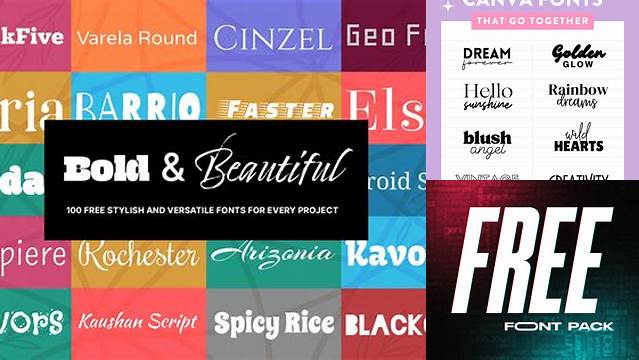
Free Font Packs On Reddit: Your Ultimate Guide
Hey guys! Ever found yourself scrolling through Reddit, admiring the awesome typography in someone's design and wondering where they got their fonts? You're not alone! The world of fonts can be a wild and wonderful place, but finding the perfect free font pack can sometimes feel like searching for a needle in a haystack. But fear not! Reddit is a treasure trove of resources, and today, we're diving deep into the best places to find free font packs on Reddit. We'll explore different subreddits, user recommendations, and tips on how to safely download and use these fonts. So, let's get started and elevate your designs with some fresh typography!
Exploring Reddit for Font Packs
Finding free font packs on Reddit is all about knowing where to look. Reddit's community-driven nature makes it an amazing place to discover hidden gems and user-recommended resources. But before we dive into specific subreddits, let's talk about the general approach. Start by using the search bar! Simple queries like "free fonts," "font packs," or even specific styles like "serif fonts free" can yield surprising results. Don't be afraid to get specific with your search terms to narrow down your options and find exactly what you're looking for. Reddit's search function is your best friend in this journey, so get comfortable using it! The key is to experiment with different keywords and phrases to uncover the best font resources Reddit has to offer. Remember to also check the comments sections of posts – often, users will share valuable links and recommendations that aren't included in the original post. So, let's get ready to explore the vast font landscape that Reddit has waiting for you!
Best Subreddits for Free Fonts
Okay, so you know how to search, but where should you start? Several subreddits are dedicated to design resources, and many users generously share free font packs within these communities. Let's talk about some of the top contenders. First up, /r/FreeDesignResources. This subreddit is a goldmine for all things design-related, including fonts! Users frequently post links to free font packs, mockups, and other resources. Be sure to browse through the posts and use the search function within the subreddit to find specific font styles or types. Another great option is /r/graphic_design. While not exclusively focused on free resources, this subreddit often features discussions and posts about typography, and users often share their favorite free fonts in the comments. Keep an eye out for these discussions, as they can lead you to some amazing finds. And don't forget about more specialized subreddits! For example, if you're looking for calligraphy fonts, try searching for subreddits dedicated to calligraphy or hand-lettering. These niche communities often have a wealth of information and resources for specific font styles. Remember to always check the rules of each subreddit before posting or downloading anything, and be respectful of the community. Happy font hunting!
Free Fonts Subreddit: A Deep Dive
Let's take a closer look at /r/FreeFonts, a subreddit specifically dedicated to – you guessed it – free fonts! This is a fantastic place to discover a wide variety of typography options. The community is active, and users regularly share links to free font packs, individual fonts, and resources for finding fonts. One of the best ways to navigate this subreddit is by using the search function to look for specific font styles or types. You can also browse through the posts to see what's been recently shared. Another helpful tip is to check the sidebar of the subreddit, as it often contains links to useful resources and FAQs. Remember to always read the descriptions and licensing information for any fonts you download to ensure you're using them legally. /r/FreeFonts is a vibrant community, and you'll likely find plenty of inspiration and new fonts to add to your collection. So, take some time to explore this subreddit and see what typography treasures you can uncover. You might just find your new favorite font!
Finding Free Fonts on Reddit: User Recommendations
Beyond the dedicated subreddits, one of the best ways to discover free font packs on Reddit is by tapping into the collective knowledge of the users themselves. Reddit is a community, and people love to share their favorite resources and recommendations. So, how do you find these hidden gems? Start by looking for threads or posts where users are discussing fonts or typography. Often, people will ask for recommendations for specific font styles or share their favorite free fonts in the comments. These comment sections can be a goldmine of information! Another strategy is to search for posts where users are showcasing their designs or projects. If you see a font you like, don't hesitate to ask the user what font they used and where they found it. Most people are happy to share their resources and help others. You can also try searching for posts with titles like "Best Free Fonts," "Font Recommendations," or "Free Font Resources." These types of posts are often filled with user suggestions and links to helpful websites and resources. Remember to always be respectful and thank the users who share their recommendations. Reddit's community thrives on collaboration and sharing, so your gratitude will be appreciated! So, get ready to explore the wisdom of the Reddit crowd and discover some amazing free fonts!
Font Pack Styles: Finding Your Perfect Match
Now that we've covered the basics of finding free font packs on Reddit and staying safe, let's talk about finding the right fonts for your projects. With so many fonts available, it can be overwhelming to know where to start. One of the best ways to narrow down your options is to think about the style of font you're looking for. Are you creating a formal document that requires a classic serif font? Or are you designing a modern website that calls for a clean sans-serif font? Perhaps you're working on a vintage-inspired project that would benefit from a script font or a decorative display font. Understanding the different font styles and their common uses can help you make informed choices. Serif fonts, with their little "feet" or serifs, are often used in print materials and lend a traditional, elegant feel. Sans-serif fonts, without serifs, are typically used for digital displays and convey a more modern, minimalist aesthetic. Script fonts mimic handwriting and can add a personal touch to your designs. Display fonts are designed for headlines and titles and often feature unique, eye-catching characteristics. By considering the style of font that best suits your project, you can streamline your search and find the perfect typography to bring your vision to life. So, think about the message you want to convey and choose fonts that align with your overall design aesthetic!
Serif Font Packs: Classic Elegance
Let's zoom in on a specific font style: serif fonts. Serif fonts are characterized by the small decorative strokes, or serifs, that extend from the main strokes of the letters. These fonts have a long history and are often associated with tradition, elegance, and authority. They are commonly used in print materials, such as books, newspapers, and magazines, as well as in formal documents and corporate branding. If you're looking for free serif font packs on Reddit, you're in luck! There are plenty of options available. Some popular serif fonts include Times New Roman, Garamond, and Georgia, but there are also many other beautiful and unique serif fonts to discover. When choosing a serif font, consider the overall tone and message you want to convey. A classic serif font like Times New Roman can lend a sense of formality and professionalism, while a more decorative serif font can add a touch of personality and flair. Be sure to pay attention to the font's readability, especially if you're using it for body text. A well-designed serif font should be easy to read at various sizes. Reddit's design communities often discuss and share their favorite serif fonts, so be sure to check out subreddits like /r/typography and /r/graphic_design for recommendations and inspiration. With a little searching, you can find the perfect serif font to add a touch of classic elegance to your projects!
Sans-Serif Font Packs: Modern Minimalism
Now, let's shift our focus to sans-serif fonts. Unlike serif fonts, sans-serif fonts lack the decorative strokes, or serifs, at the ends of the letters. This gives them a cleaner, more modern appearance, making them a popular choice for digital displays, websites, and branding. If you're searching for free sans-serif font packs on Reddit, you'll find a wide variety of options to choose from. Some well-known sans-serif fonts include Arial, Helvetica, and Open Sans, but there are also countless other fantastic sans-serif fonts waiting to be discovered. When selecting a sans-serif font, consider the overall aesthetic you want to achieve. A clean, minimalist sans-serif font can convey a sense of sophistication and simplicity, while a bolder sans-serif font can make a strong statement. Pay attention to the font's legibility, especially if you're using it for body text on a website or in a mobile app. A legible sans-serif font should be easy to read on screens of various sizes and resolutions. Reddit's design communities are a great resource for finding recommendations and inspiration for sans-serif fonts. Check out subreddits like /r/web_design and /r/UI_Design for discussions and suggestions from fellow designers. With a little exploration, you can find the perfect sans-serif font to add a touch of modern minimalism to your designs!
Script Font Packs: Elegant Handwritings
If you're looking to add a touch of personality and elegance to your designs, script fonts are an excellent choice. Script fonts mimic the flowing strokes of handwriting, giving them a unique and artistic feel. They are often used for invitations, logos, and other designs where a personal touch is desired. Finding free script font packs on Reddit can be a bit more challenging than finding serif or sans-serif fonts, but there are still plenty of options available. When searching for script fonts, be sure to use specific keywords like "free calligraphy fonts," "free handwriting fonts," or "free cursive fonts." This will help you narrow down your search and find the perfect script font for your needs. Keep in mind that script fonts can sometimes be less legible than serif or sans-serif fonts, so it's important to choose a script font that is clear and easy to read, especially if you're using it for body text. Reddit's calligraphy and hand-lettering communities are great resources for finding recommendations and inspiration for script fonts. Check out subreddits like /r/calligraphy and /r/handwriting for discussions and suggestions from fellow lettering enthusiasts. With a little searching, you can find a beautiful script font to add a touch of handwritten elegance to your projects!
Display Font Packs: Bold and Unique
For designs that need to make a statement, display fonts are the way to go. These fonts are designed to grab attention and are often used for headlines, titles, and logos. Display fonts come in a wide variety of styles, from bold and blocky to whimsical and decorative. If you're on the hunt for free display font packs on Reddit, you'll find a treasure trove of creative options. When searching for display fonts, be sure to use specific keywords that reflect the style you're looking for, such as "free vintage fonts," "free futuristic fonts," or "free grunge fonts." This will help you narrow down your search and find the perfect display font for your project. Because display fonts are often used at larger sizes, legibility is less of a concern than with body text fonts. However, it's still important to choose a display font that is clear and easy to read, especially if you're using it for shorter headlines or titles. Reddit's design communities are a fantastic resource for finding recommendations and inspiration for display fonts. Explore subreddits like /r/graphic_design and /r/typography for discussions and suggestions from fellow designers. With a little exploration, you can discover a bold and unique display font that will make your designs stand out!
Reddit Font Pack Resources: Websites and Links
We've explored subreddits and user recommendations, but let's talk about specific websites and links that are often shared on Reddit for free font packs. Many websites offer a curated selection of free fonts, and Redditors are quick to share their favorite finds. Some popular websites include Font Squirrel, Google Fonts, and DaFont. Font Squirrel is known for its high-quality free fonts that are licensed for commercial use. Google Fonts offers a vast library of open-source fonts that are easy to use on websites and in documents. DaFont features a wide variety of fonts, including many free options, but it's important to carefully review the licensing information for each font before using it. When browsing these websites, be sure to use the search filters to narrow down your options by style, license, and other criteria. You can also check out their curated collections and featured fonts for inspiration. Reddit threads often link directly to these websites, so keep an eye out for those shares. Remember to always double-check the licensing information for any font you download, regardless of the source. By exploring these websites and links shared on Reddit, you can expand your font library and discover new typographic treasures!
Font Squirrel: A Reddit Favorite
Let's take a closer look at one of Reddit's favorite resources for free font packs: Font Squirrel. This website is a go-to destination for designers looking for high-quality, commercially licensed fonts that are free to download. Font Squirrel stands out for its careful selection of fonts, ensuring that every font offered on the site is well-designed and professionally crafted. One of the best features of Font Squirrel is its Font Identifier tool, which allows you to upload an image of a font and identify it. This can be incredibly helpful if you've seen a font you like but don't know its name. The website also offers a Webfont Generator, which allows you to convert desktop fonts into web fonts for use on websites. When browsing Font Squirrel, you can filter fonts by style, license, and other criteria, making it easy to find the perfect font for your project. The website also features blog posts and articles about typography, providing valuable insights and inspiration for designers. Redditors often share their Font Squirrel finds in design subreddits, highlighting the website's reputation as a reliable source for free fonts. If you're serious about typography, Font Squirrel is a website you'll want to bookmark! Its commitment to quality and its focus on commercial-use fonts make it a valuable resource for any designer.
Google Fonts: Open Source Typography on Reddit
Another popular resource for free font packs often mentioned on Reddit is Google Fonts. This platform offers a vast library of open-source fonts that are easy to use on websites and in documents. One of the key advantages of Google Fonts is its seamless integration with Google's services, such as Google Docs and Google Slides. This makes it incredibly convenient to use these fonts in your projects. Google Fonts also offers a simple way to embed fonts on your website, ensuring that your typography looks consistent across different browsers and devices. The platform's open-source nature means that all fonts are free to use, even for commercial projects. Google Fonts features a clean and intuitive interface, making it easy to browse and filter fonts by style, language, and other criteria. You can also preview fonts in different sizes and styles to see how they will look in your designs. Reddit users often recommend Google Fonts for its accessibility, its vast selection of fonts, and its ease of use. If you're looking for a reliable source of free, open-source fonts, Google Fonts is an excellent choice. Its integration with Google's services and its simple embedding process make it a particularly valuable resource for web designers and developers.
DaFont: A Reddit User's Paradise for Free Fonts
DaFont is a name that frequently pops up in Reddit discussions about free font packs. This website boasts an extensive collection of fonts, many of which are available for free download. DaFont is a treasure trove for designers seeking a wide variety of styles, from classic serifs to playful display fonts. However, it's crucial to exercise caution when using DaFont, as licensing can vary significantly between fonts. While many fonts are free for personal use, commercial use may require a license or donation to the author. It's always essential to carefully review the licensing information provided with each font before incorporating it into your projects. DaFont's user-friendly interface allows you to browse fonts by category, theme, or author. You can also preview fonts with custom text to see how they will look in your designs. Reddit users often share their DaFont discoveries, highlighting the site's vast selection and the unique fonts that can be found there. If you're willing to take the time to carefully review licensing terms, DaFont can be a valuable resource for expanding your font library. Just remember to prioritize safety and legal compliance when using fonts from this platform.
Free Font Pack Alternatives: Beyond Reddit
While Reddit is a fantastic resource for finding free font packs, it's not the only game in town. There are many other websites and platforms that offer free fonts, and it's worth exploring these alternatives to expand your options. Some popular alternatives include MyFonts, Adobe Fonts, and Creative Market. MyFonts is a well-known marketplace for fonts, offering a vast selection of both free and premium fonts. Adobe Fonts is a subscription-based service that provides access to thousands of fonts, but it also offers a selection of free fonts. Creative Market is a marketplace for design assets, including fonts, and it often features free font bundles and promotions. When exploring these alternatives, remember to always pay attention to licensing terms and download fonts from reputable sources. You can also find free font resources on individual designer websites and blogs. Many designers generously offer their fonts for free as a way to give back to the community. Reddit threads often mention these alternative resources, so keep an eye out for those recommendations. By exploring beyond Reddit, you can discover even more free font options and find the perfect typography for your projects. So, don't limit yourself – venture out and see what other typographic treasures you can find!
Using Font Packs in Design Projects
Okay, you've found some amazing free font packs on Reddit and from other sources – now what? Let's talk about how to effectively use these fonts in your design projects. The key to good typography is choosing the right font for the right purpose. Consider the overall tone and message of your project and select fonts that align with that vision. For example, if you're designing a website for a law firm, you'll likely want to choose a classic serif font that conveys professionalism and authority. On the other hand, if you're designing a poster for a music festival, you might opt for a bolder, more playful display font. It's also important to consider the legibility of your fonts, especially if you're using them for body text. A font that looks beautiful at a large size may not be as readable at a smaller size. Experiment with different font sizes, weights, and styles to find the optimal balance between aesthetics and legibility. Don't be afraid to mix and match fonts, but do so with intention. A good rule of thumb is to choose one or two fonts for your main text and another font for headlines or accents. Remember to create a visual hierarchy by using different font sizes, weights, and styles to guide the reader's eye. By following these tips, you can effectively use your free font packs to create stunning designs!
Typography Tips for Beginners
If you're new to typography, the world of fonts can seem overwhelming. But don't worry! With a few basic tips, you can start making informed decisions about your typography choices. One of the most important things to remember is to keep it simple. Don't use too many different fonts in a single design. A good starting point is to stick to two or three fonts and use them consistently throughout your project. Another key principle is to create contrast. Use different font sizes, weights, and styles to create visual interest and guide the reader's eye. For example, you might use a bold font for headlines and a lighter font for body text. Pay attention to kerning and leading. Kerning refers to the spacing between individual letters, while leading refers to the spacing between lines of text. Adjusting these settings can significantly improve the readability and visual appeal of your typography. Consider the mood and tone of your project when choosing fonts. A playful script font might be perfect for a children's book, but it would likely be inappropriate for a business report. Don't be afraid to experiment! Try out different font combinations and see what works best for your project. Typography is a skill that develops over time, so the more you practice, the better you'll become. And don't forget the free font packs on Reddit are a great place to find resources for practice! By following these typography tips, you can elevate your designs and create visually appealing and effective communication.
Combining Fonts: Creating Harmony
One of the trickiest aspects of typography is combining fonts effectively. Using multiple fonts in a design can add visual interest and hierarchy, but it's crucial to do it thoughtfully to avoid creating a cluttered or jarring effect. The key to combining fonts is to create harmony and contrast. Choose fonts that complement each other while still having enough distinctiveness to create visual separation. A classic approach is to pair a serif font with a sans-serif font. For example, you might use a serif font for headlines and a sans-serif font for body text, or vice versa. This combination provides a balance between traditional elegance and modern simplicity. Consider the x-height of the fonts you're combining. The x-height is the height of the lowercase letters in a font. Fonts with similar x-heights tend to pair well together. Pay attention to the mood and tone of the fonts. Choose fonts that share a similar aesthetic and evoke the same feeling. For example, you might pair two elegant script fonts for a wedding invitation, or two bold sans-serif fonts for a modern poster. Limit the number of fonts you use. As a general rule, it's best to stick to two or three fonts in a single design. Too many fonts can create a sense of visual chaos. Experiment and practice! Try out different font combinations and see what works best for your project. The more you practice, the better you'll become at combining fonts effectively. And remember, the free font packs on Reddit offer a great opportunity to experiment with different typefaces. By following these tips, you can create harmonious and visually appealing typography in your designs!
Font Management Tools: Organizing Your Collection
As your font collection grows, it's essential to have a system for managing your fonts effectively. A good font management tool can help you organize your fonts, activate and deactivate them as needed, and prevent font conflicts. There are several font management tools available, both free and paid. Some popular options include FontBase, NexusFont, and RightFont. FontBase is a free, modern font manager that offers a clean and intuitive interface. It allows you to organize your fonts into collections, preview fonts, and activate and deactivate them with ease. NexusFont is another free font manager that offers a wide range of features, including font preview, font comparison, and font activation. RightFont is a paid font manager that offers advanced features such as auto-activation, font syncing, and integration with design software. When choosing a font management tool, consider your specific needs and budget. A free font manager may be sufficient if you have a smaller font collection and basic needs. However, if you're a professional designer with a large font library, a paid font manager with advanced features may be a worthwhile investment. No matter which font management tool you choose, the key is to develop a system for organizing your fonts that works for you. This will save you time and frustration in the long run and ensure that you can easily find the fonts you need for your projects. And with the vast selection of free font packs on Reddit, a good font management system is more important than ever!
Font File Formats: OTF vs. TTF
When downloading free font packs on Reddit or from other sources, you'll often encounter two main font file formats: OTF and TTF. It's helpful to understand the differences between these formats to make informed decisions about which fonts to use. TTF (TrueType Font) is the older of the two formats, developed by Apple and Microsoft in the late 1980s. TTF fonts are widely supported across different operating systems and applications. OTF (OpenType Font) is a more modern format, developed jointly by Microsoft and Adobe in the 1990s. OTF fonts offer several advantages over TTF fonts, including support for more glyphs (characters) and advanced typographic features such as ligatures and alternate characters. OTF fonts also use more efficient compression, resulting in smaller file sizes. In general, OTF fonts are considered the preferred format for professional design work. They offer greater flexibility and control over typography. However, TTF fonts are still widely used and supported, so you don't necessarily need to avoid them. When choosing between OTF and TTF fonts, consider the specific needs of your project. If you need advanced typographic features or want to ensure optimal rendering on modern devices, OTF is the way to go. But if compatibility is your primary concern, TTF fonts are a safe bet. Ultimately, the best font file format is the one that works best for your specific needs and workflow. So explore the options within the free font packs on Reddit and see what suits you!
Free Font Pack Creation: DIY Typography
Feeling creative? Have you ever considered creating your own free font packs? While it might seem like a daunting task, designing your own fonts can be a rewarding experience and a great way to add a unique touch to your projects. Several software options are available for font creation, ranging from free to professional-grade. Some popular options include FontForge (free), BirdFont (free), and Glyphs (paid). FontForge is a powerful, open-source font editor that offers a wide range of features for creating and editing fonts. It's a great option for those who are comfortable with a more technical interface. BirdFont is another free font editor that offers a more user-friendly interface than FontForge. It's a good choice for beginners who are just starting to learn about font design. Glyphs is a professional-grade font editor that offers a comprehensive set of features for creating high-quality fonts. It's a popular choice among professional type designers. Creating a font involves designing each individual letter, number, and symbol, as well as defining the spacing and kerning between characters. It's a time-consuming process, but the result can be a truly unique and personalized typeface. If you're interested in creating your own fonts, there are many online resources and tutorials available to help you get started. And who knows, maybe your font will be the next big thing in the free font packs on Reddit! So, why not give it a try and unleash your inner type designer?
Font Pairings: Case Studies and Examples
We've talked about the principles of combining fonts, but let's dive into some specific examples of successful font pairings. Studying real-world case studies can provide valuable insights into how different fonts work together and inspire your own typography choices. One classic font pairing is Open Sans (sans-serif) and Merriweather (serif). Open Sans is a clean and legible sans-serif font that works well for body text, while Merriweather is a warm and inviting serif font that adds a touch of personality to headlines. Another popular pairing is Montserrat (sans-serif) and Raleway (sans-serif). Both Montserrat and Raleway are geometric sans-serif fonts, but they have subtle differences that create visual interest. Montserrat is slightly bolder and more impactful, while Raleway is more delicate and refined. This pairing works well for modern and minimalist designs. For a more elegant and sophisticated look, try pairing Playfair Display (serif) with Montserrat (sans-serif). Playfair Display is a high-contrast serif font that adds a touch of drama to headlines, while Montserrat provides a clean and readable counterpoint for body text. If you're looking for a playful and whimsical pairing, consider using Luckiest Guy (display) with Montserrat (sans-serif). Luckiest Guy is a hand-drawn display font that adds a fun and quirky touch to designs, while Montserrat provides a solid foundation for the overall typography. These are just a few examples, and there are countless other successful font pairings to discover. Experiment with different combinations and see what works best for your projects. And don't forget to explore the free font packs on Reddit for inspiration and resources! So get creative and find your perfect typographic match!
Font Trends: What's Hot in Typography
The world of typography is constantly evolving, with new trends emerging and old trends fading away. Staying up-to-date on the latest font trends can help you create designs that feel fresh and modern. One major trend in recent years has been the return of retro and vintage fonts. These fonts evoke a sense of nostalgia and can add a unique touch to your designs. Look for fonts with a hand-drawn feel, script fonts, and fonts with a vintage aesthetic. Another popular trend is the use of bold and impactful display fonts. These fonts are designed to grab attention and make a statement. They are often used for headlines, logos, and other design elements that need to stand out. Geometric sans-serif fonts continue to be a popular choice for modern designs. These fonts have a clean and minimalist aesthetic and work well for both body text and headlines. Variable fonts are another trend to watch. Variable fonts allow for greater flexibility and control over font styles, making it possible to create a wide range of typographic variations from a single font file. To stay informed about the latest font trends, follow design blogs, attend design conferences, and explore online design communities. And don't forget to browse the free font packs on Reddit to see what fonts are trending among designers. By staying on top of font trends, you can ensure that your designs are always stylish and up-to-date!
Font Psychology: The Message Behind the Typeface
Did you know that fonts can evoke specific emotions and associations? The typeface you choose can significantly impact how your message is perceived. Understanding the psychology of fonts can help you make informed decisions about your typography choices and create designs that resonate with your audience. Serif fonts often convey a sense of tradition, authority, and elegance. They are commonly used in formal documents, corporate branding, and designs that need to project a sense of professionalism. Sans-serif fonts tend to evoke a more modern, clean, and minimalist aesthetic. They are often used in digital designs, websites, and branding for tech companies. Script fonts can add a personal and elegant touch to designs. They are often used for invitations, logos, and designs that need to feel handcrafted or unique. Display fonts are designed to grab attention and make a statement. They come in a wide variety of styles and can evoke a range of emotions, from playful and whimsical to bold and dramatic. When choosing fonts, consider the overall mood and message you want to convey. If you're designing a website for a children's toy store, you might choose playful and whimsical fonts. On the other hand, if you're designing a brochure for a financial institution, you'll likely want to opt for more professional and trustworthy fonts. Explore the free font packs on Reddit and think about the emotions and associations that each font evokes. By understanding font psychology, you can create designs that communicate effectively and resonate with your target audience!
Font Accessibility: Designing for Everyone
In today's world, it's crucial to create designs that are accessible to everyone, including people with disabilities. Font accessibility is an important aspect of web design and graphic design that ensures your content is readable and usable by all. One of the key principles of font accessibility is to choose fonts that are legible. Avoid overly decorative or stylized fonts that can be difficult to read. Opt for clean and simple fonts with good character spacing and clear letterforms. Consider the font size. Use a font size that is large enough to be easily read by people with visual impairments. A general guideline is to use a minimum font size of 16 pixels for body text on websites. Pay attention to contrast. Ensure that there is sufficient contrast between the text and the background color. Low contrast can make it difficult for people with visual impairments to read the text. Use proper heading structure. Use HTML heading tags (
, , , etc.) to create a clear hierarchy in your content. This helps screen reader users navigate your content more easily. Provide alternative text for images. If you're using images that contain text, provide alternative text descriptions that accurately describe the content of the image. When choosing fonts, explore the free font packs on Reddit and look for fonts that are specifically designed for accessibility. By following these tips, you can create designs that are inclusive and accessible to everyone!
Font Pairing Tools: Simplify Your Choices
, etc.) to create a clear hierarchy in your content. This helps screen reader users navigate your content more easily. Provide alternative text for images. If you're using images that contain text, provide alternative text descriptions that accurately describe the content of the image. When choosing fonts, explore the free font packs on Reddit and look for fonts that are specifically designed for accessibility. By following these tips, you can create designs that are inclusive and accessible to everyone!
Font Pairing Tools: Simplify Your Choices
Feeling overwhelmed by the vast array of fonts available and unsure how to pair them effectively? Luckily, several font pairing tools can help simplify the process and guide you toward successful typographic combinations. These tools often leverage design principles and font psychology to suggest harmonious pairings that complement each other visually and conceptually. One popular tool is FontPair, a website that showcases Google Font pairings. It allows you to browse pairings by category (e.g., serif and sans-serif) or industry (e.g., business, design). Another helpful resource is Canva's Font Combinations tool, which provides a curated list of font pairings along with visual examples. You can also explore Adobe Fonts' curated font packs, which often include pre-selected font pairings designed to work well together. These tools typically consider factors like font style, weight, x-height, and overall mood to recommend pairings that create visual interest and hierarchy while maintaining legibility. They can be particularly useful for designers who are new to typography or those seeking inspiration for fresh font combinations. Remember, these tools are meant to be a starting point. Feel free to experiment and customize the suggestions to fit your specific design needs. And don't forget to leverage the free font packs on Reddit as a source of diverse fonts to test with these tools! By using font pairing tools, you can streamline your design workflow and confidently create visually appealing and effective typography.
Font Inspiration: Where to Find It
Stuck in a typographic rut? Finding inspiration is key to keeping your designs fresh and engaging. Fortunately, there are countless sources of font inspiration, both online and offline. Online platforms like Dribbble and Behance are treasure troves of visual design, showcasing diverse projects with innovative typography. Browsing these platforms can expose you to new font combinations, layout techniques, and design trends. Typewolf is a website dedicated to showcasing beautiful typography in real-world websites. It's a great resource for seeing how fonts are used in context and understanding their impact on the overall design. Pinterest is another valuable source of visual inspiration. Create a mood board for typography, and pin examples of fonts, layouts, and color palettes that resonate with you. Offline, you can find inspiration in books, magazines, posters, and signage. Pay attention to the typography used in these mediums and analyze why it works effectively. Design museums and galleries often showcase typographic art and design, providing a deeper understanding of the history and evolution of typefaces. Don't underestimate the power of observing the world around you. Notice the fonts used in everyday life, from street signs to product packaging. This can spark unexpected ideas and help you develop a keen eye for typography. And of course, the free font packs on Reddit and the discussions surrounding them can be a constant source of inspiration! By actively seeking inspiration from various sources, you can expand your typographic knowledge and create designs that are visually compelling and impactful.
Font Licensing FAQs: Common Questions Answered
Navigating font licensing can feel like a legal labyrinth, but understanding the basics is crucial for responsible font usage. Here are some frequently asked questions about font licensing to help you stay compliant: What does a font license cover? A font license grants you the right to use a font software under specific terms and conditions. It typically outlines the permitted uses (e.g., personal, commercial), the number of users allowed, and any restrictions on modification or redistribution. What's the difference between personal and commercial use? Personal use generally refers to non-profit projects, such as personal websites, school assignments, or hobby projects. Commercial use involves projects that generate revenue, such as client work, advertising, or merchandise. *Can I use a